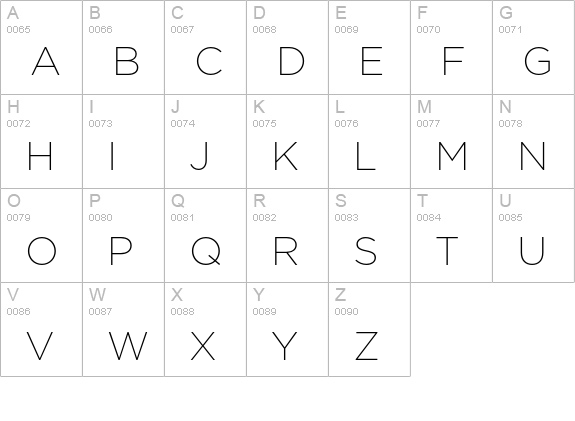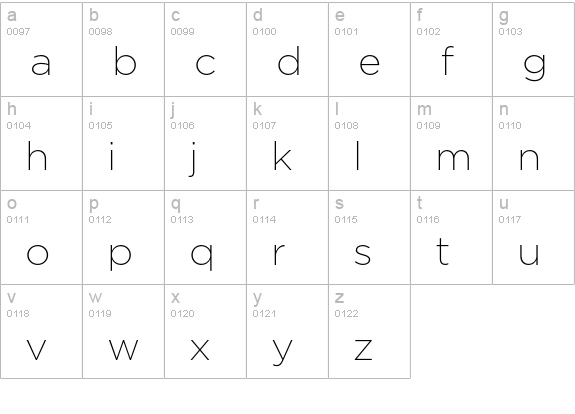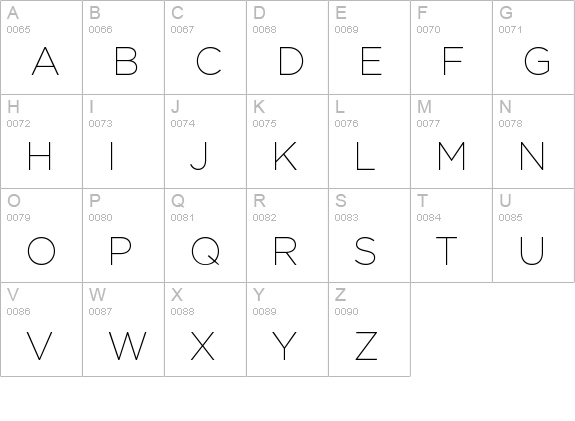
GothamExLight Font Details
GothamExLight is a modern, elegant sans-serif font that exudes sophistication and class. With its clean lines and sleek design, this font is perfect for a wide range of design projects, from branding to editorial design. The light weight of the font gives it a delicate and airy feel, making it ideal for adding a touch of refinement to any layout. What's even better is that GothamExLight is available for free download at FontsMarket.com. This means you can easily access this beautiful font without any cost, making it a valuable addition to your font library. Don't miss out on the opportunity to enhance your designs with the timeless style of GothamExLight – download it today and elevate your projects to the next level.